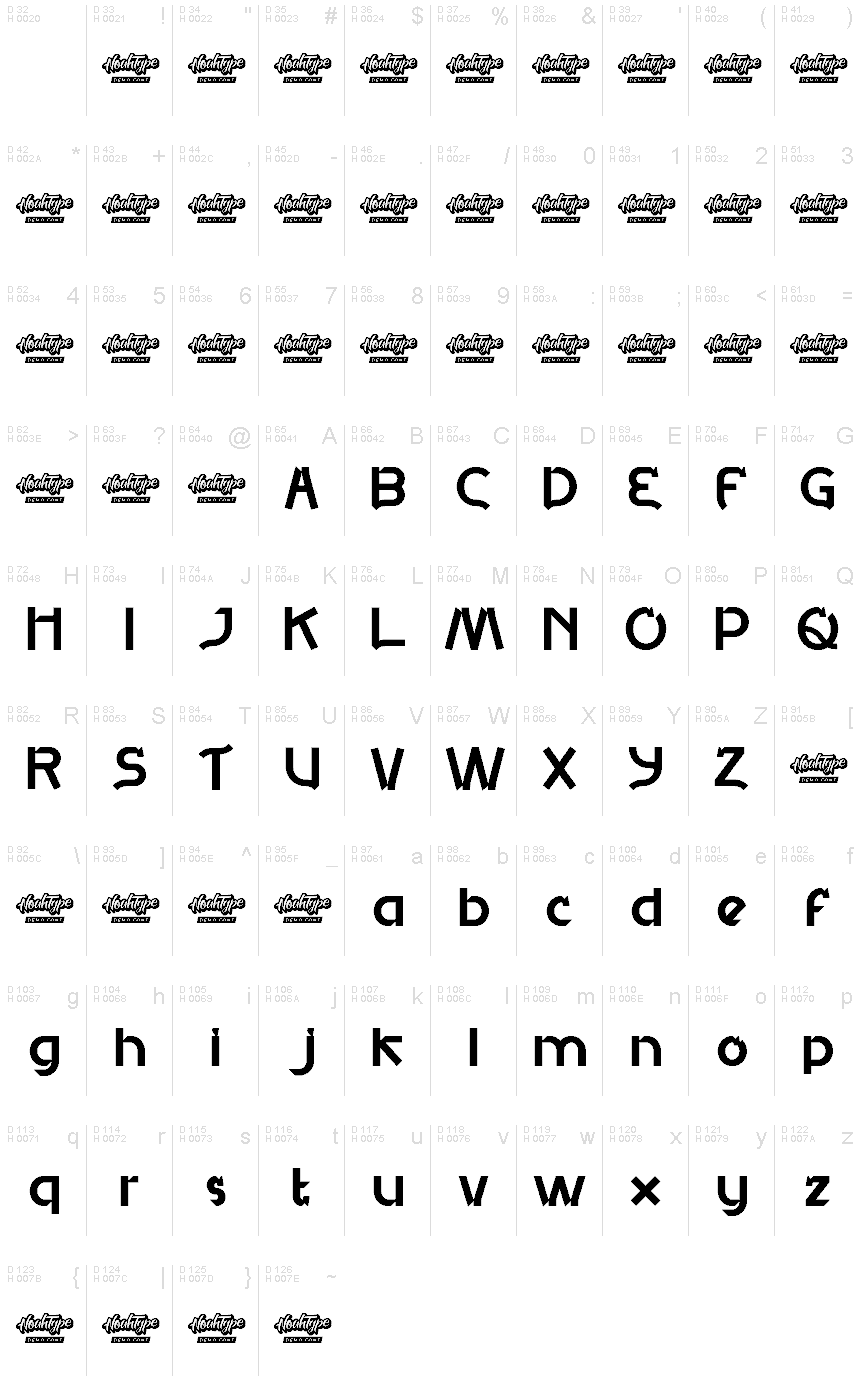
Gamers font is a geometric display font from Noah Type. Its modern, clean, minimalistic design exudes a streamlined and professional look. Each letter features intriguing corners and slightly varied levels to form a dynamic style that catches attention immediately.
A free techno display font for designers, Gamers wave its remarkable influence over digital design projects related to gaming and technology. It can be used for web design, interface design, logos, posters, brochures, invitations, social media posts as well as typography art and t-shirt designs.